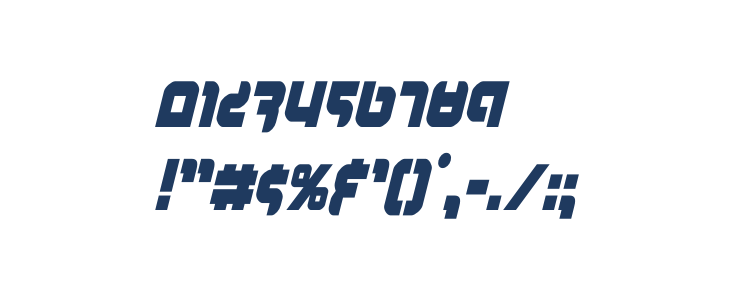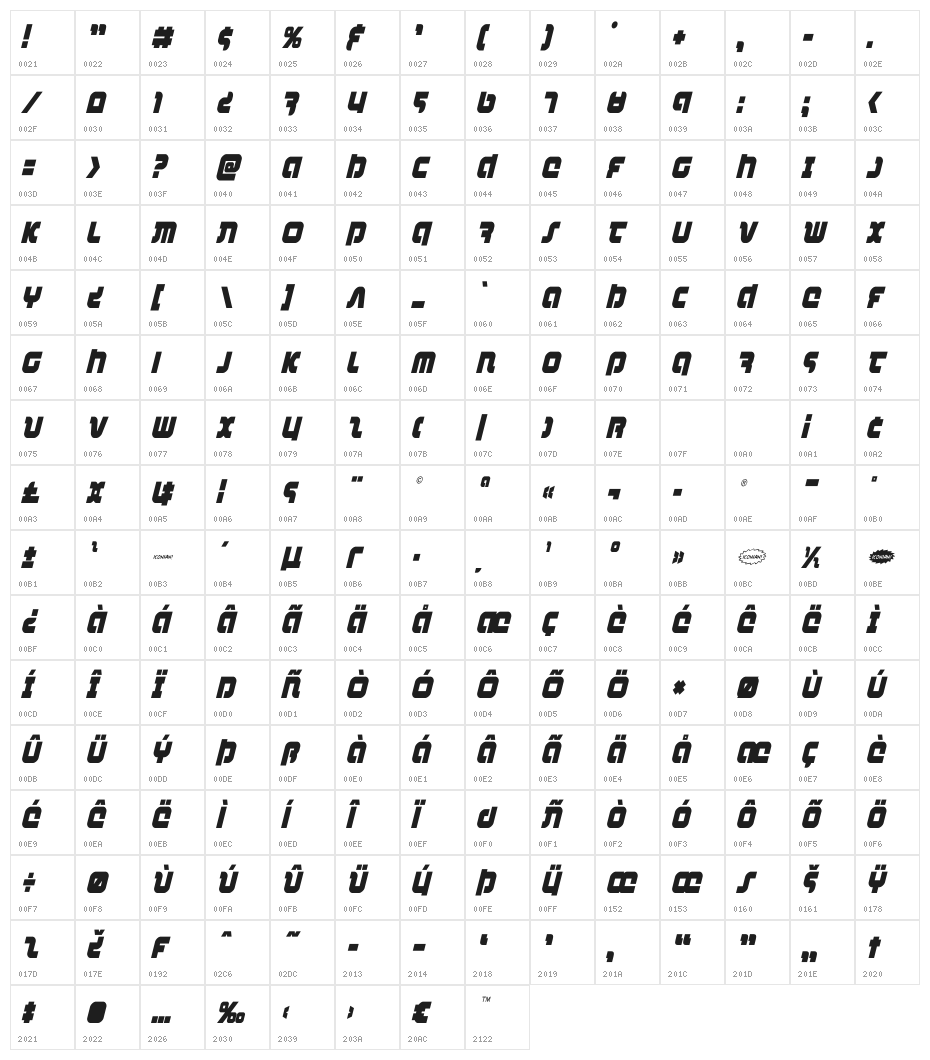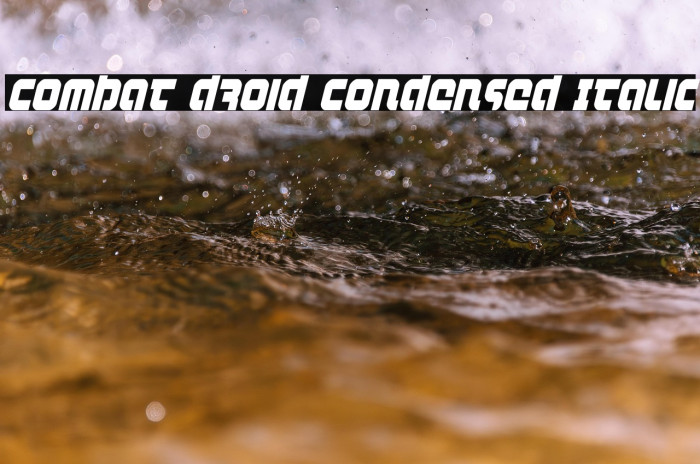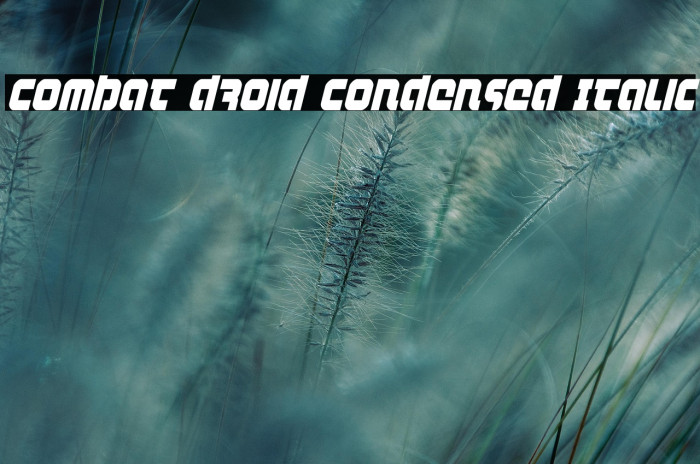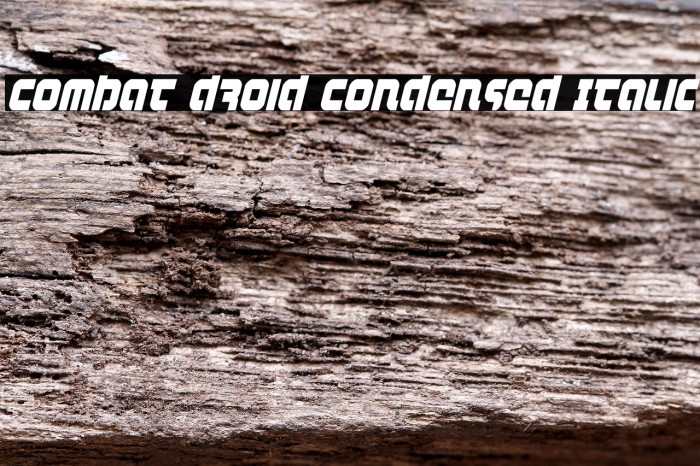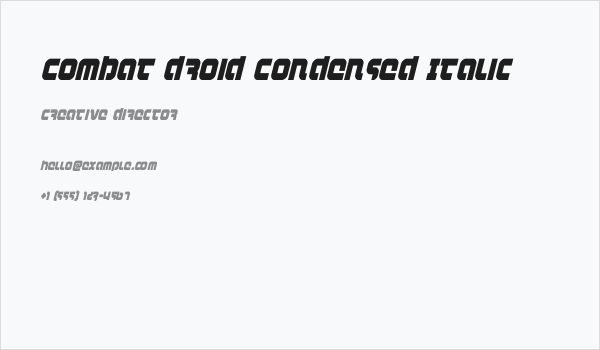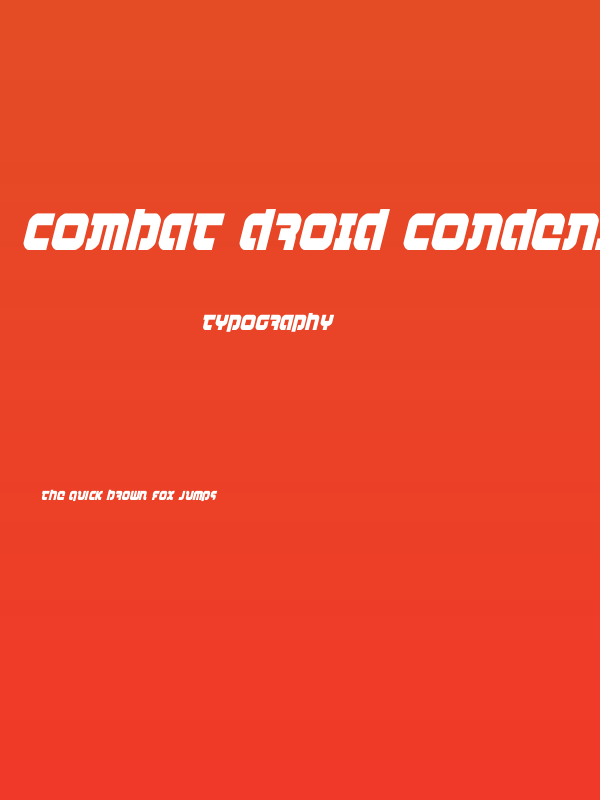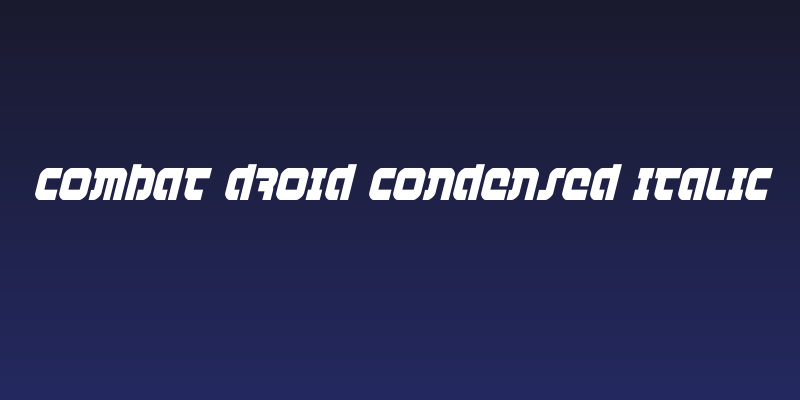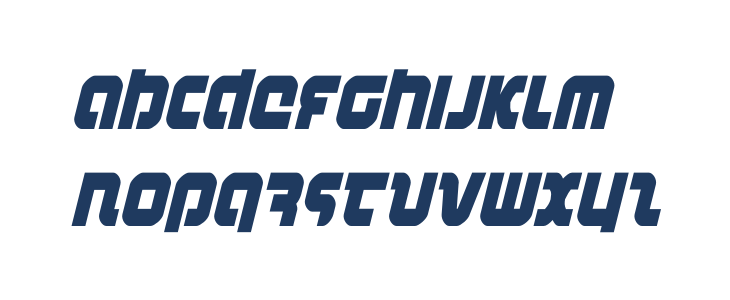
Combat Droid Condensed Italic Font
Combat Droid Condensed Italic Description
This font features a futuristic and bold design with a condensed and italicized style. The characters are sharply angled, giving a dynamic and aggressive appearance. The uppercase and lowercase letters maintain a consistent slant, enhancing the italic effect. The numbers and special characters follow the same stylistic cues, ensuring uniformity across all glyphs. The font's bold weight and condensed width make it suitable for impactful headlines and titles. Its modern and tech-inspired aesthetic is ideal for projects that require a strong visual presence.
| Proposed Projects | Ideal for sci-fi themed designs, video game titles, tech branding, and futuristic posters. |